When you glance at a website, a poster, or a business card, you're not just seeing words. You're being spoken to by fonts. These styles of letters carry a weight far beyond their appearance. Let's dive into the captivating world of font psychology and its profound impact on communication.
Font Psychology: Setting the Mood Before Words Do
Even before you register the meaning of a word, the font it's written in sets a tone. The shape, weight, and style of a font can communicate feelings and associations, even before the words themselves are understood. Let's explore how different fonts evoke specific moods and emotions:
Elegance & Tradition
Script fonts, with their flowing and ornate design, are reminiscent of calligraphy and classical writing. They often evoke feelings of sophistication, tradition, and elegance. Consider the font used in wedding invitations or upscale restaurant menus. An example is the "Edwardian Script" font, with its ornate curves and intricate flourishes, often used in formal events and luxury branding. The intricate design of such fonts transports you to a world of refinement and classical charm.
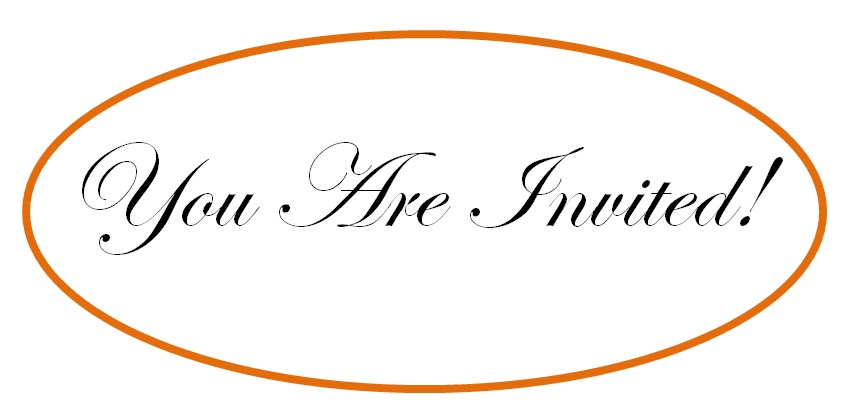
Modern & Minimalistic
Sans-serif fonts, known for their clean lines and lack of decorative elements, are the epitome of simplicity and modernity. Their straightforward design communicates a sense of clarity, efficiency, and contemporary style. They are often favored by tech startups, modern cafes, and innovative companies. "Helvetica," for example, is a popular sans-serif font known for its neutral and clean design. It's versatile and easy-to-read, making it a staple in modern graphic design. This font is used by numerous brands like American Airlines, Toyota, and even Apple for its iOS interface.
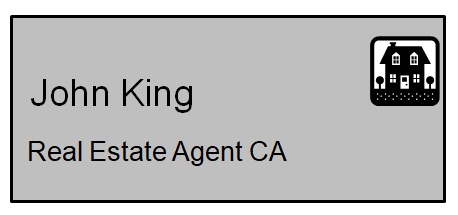
Childlike & Playful
Fonts with rounded edges, bubbly design, and playful elements evoke feelings of lightheartedness, joy, and youthfulness. These fonts are often used for products or campaigns targeting children, or in contexts where a fun, informal tone is desired. One such font is "Comic Sans," characterized by its rounded, hand-drawn appearance. It's often seen in children's books, school materials, or informal communications. Another example is the "Baloo" font, which is cheerful and bubbly, perfect for toy packaging or children's events. The playful design of these fonts takes you back to the carefree and adventurous spirit of childhood.
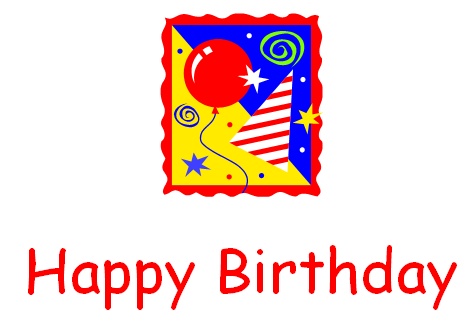
Beyond Aesthetics: Practicality in Font Choice
Legibility & The Serif Story
When we speak of legibility, we're referencing the ease with which individual characters or letters are recognized and understood. Historically, this was a significant concern, especially for print materials that often contained dense text.
Serif Fonts: These fonts, distinguished by the small lines or "serifs" attached to the end of each letter stroke, have been in use for centuries. They were found to be particularly useful in guiding the reader's eyes along the lines of text in printed materials. A classic example, "Times New Roman," has its origins in newspaper print, where the serifs aided in distinguishing individual letters and words in the tightly-packed columns of text.
The Rise of Digital & The Shift to Sans-Serif
As the world rapidly embraced digital mediums, the characteristics that made fonts readable had to evolve. On digital screens, especially the earlier lower-resolution ones, the tiny serifs could become blurred or distorted, rendering the text less readable.
Sans-serif Fonts: As the name suggests, these fonts lack the "serifs" or small lines. With their clean, unembellished design, they present information crisply and clearly on digital displays. "Arial" is one such font designed for clarity on screens. As digital design aesthetics matured, sans-serif fonts began symbolizing modernity, simplicity, and efficiency. This made them the preferred choice for websites, mobile apps, and various digital interfaces.
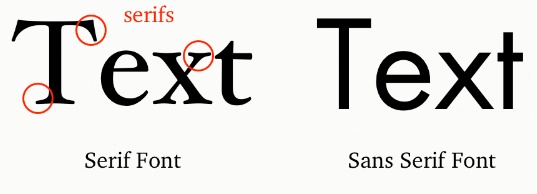
Search Intent and the Role of Fonts
When users search for content online, they come with an intent: to learn, to be entertained, or to solve a problem. That initial interaction—the font in which the information is presented—can either align with their intent or push them away. This makes font choice not just an aesthetic decision but a strategic one.
From Chisels to Pixels: The Evolution of Fonts
Our journey with fonts began long before the digital age. Ancient civilizations carved symbols into stone, each with a unique style representing their culture and epoch. With the invention of the printing press, the need for standardized lettering grew, giving birth to the early fonts.
Fast forward to today, and the rise of digital media has further diversified the font landscape. The aesthetics and practicalities dictated by print, such as the use of serifs for legibility, transformed. Digital screens demanded clearer, sharper fonts, leading to the proliferation of sans-serif styles.
Carving Identities: Fonts in Brand Recognition
When you think of 'Coca-Cola,' a very distinct font style comes to mind, doesn't it? Brands meticulously choose fonts that encapsulate their essence, ensuring they're instantly recognizable even before you see their logo or name.